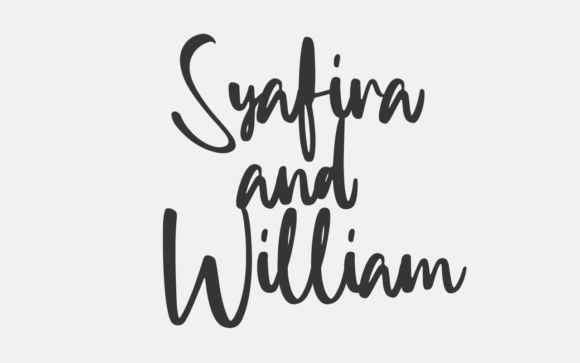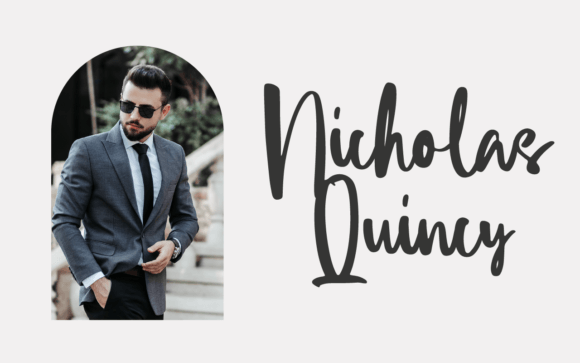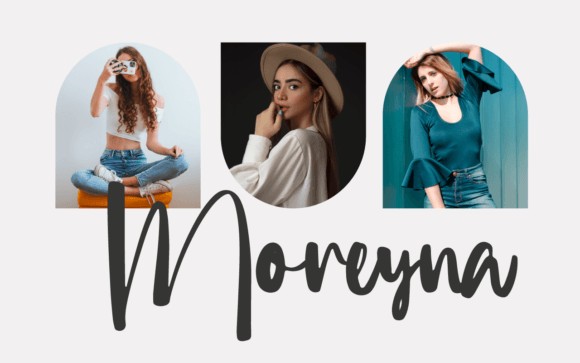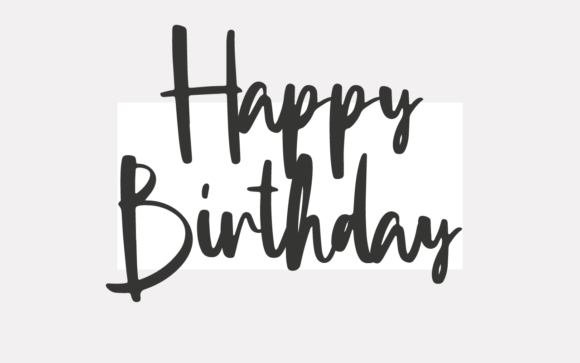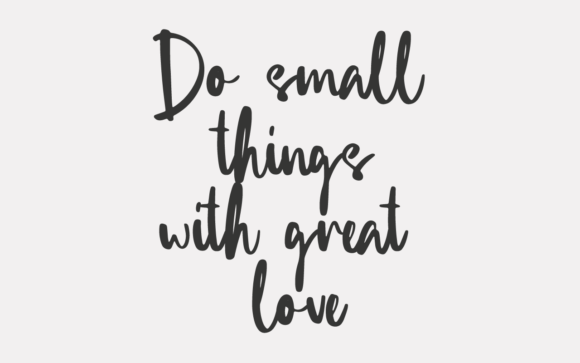
The Elegance of Fine Typography: A Designer’s Dream
As I sat at my desk, staring at a blank page, I couldn’t help but feel a surge of excitement and anticipation. It was time to bring my latest design project to life, and I knew just the font to use: Ariana Giana. This refined script font is more than just a pretty face – it’s a masterclass in elegance and sophistication, perfect for high-end designs that demand a touch of luxury.
When it comes to creating invitations, branding materials, or other upscale projects, the Bianca Monica Font is a game-changer. Its delicate flourishes and sweeping curves create a sense of beauty and refinement that’s hard to find in other fonts. As a designer, having access to this level of sophistication is invaluable, allowing you to elevate your work and stand out from the crowd.
Bianca Monica Font Key Features
- Font Family: Bianca Monica
- Font Styles: Regular, Italic, Bold, Bold Italic
- Unique Characteristics: Elegant, cursive script with a touch of sophistication and playfulness
Bianca Monica Font Review
I recently had the chance to work with the Bianca Monica font, and I must say it’s a unique and intriguing addition to any design project. ✨ Here are some of its standout features:
- Beautiful Brushstrokes: The font’s hand-drawn style gives it a charming, organic feel that’s perfect for creative projects.
- Customizable: With multiple weights and styles to choose from, Bianca Monica can adapt to various design contexts, from bold headlines to elegant body text.
- Expressive Personality: The font’s whimsical nature makes it an excellent choice for projects that require a touch of personality and flair.
However, as with any font, there are some limitations to consider: ⚠️
- Readability Issues: Due to its unique style, Bianca Monica can be challenging to read in certain contexts, particularly at smaller font sizes.
- Lack of Consistency: The font’s hand-drawn nature can lead to slight inconsistencies in letter spacing and glyph alignment, which may be noticeable in certain design elements.
Overall, Bianca Monica is a fantastic addition to any designer’s toolkit, offering a one-of-a-kind aesthetic that’s perfect for creative projects. While it may have some limitations, the font’s unique charm and versatility make it a worthwhile choice for designers looking to add some personality to their work.
Some tips for getting the most out of the Bianca Monica font include:
- Using it for headings and titles to add a touch of elegance.
- Pairing it with other fonts to create a unique and stylish design.
- Using it for wedding invitations and other special occasion materials.